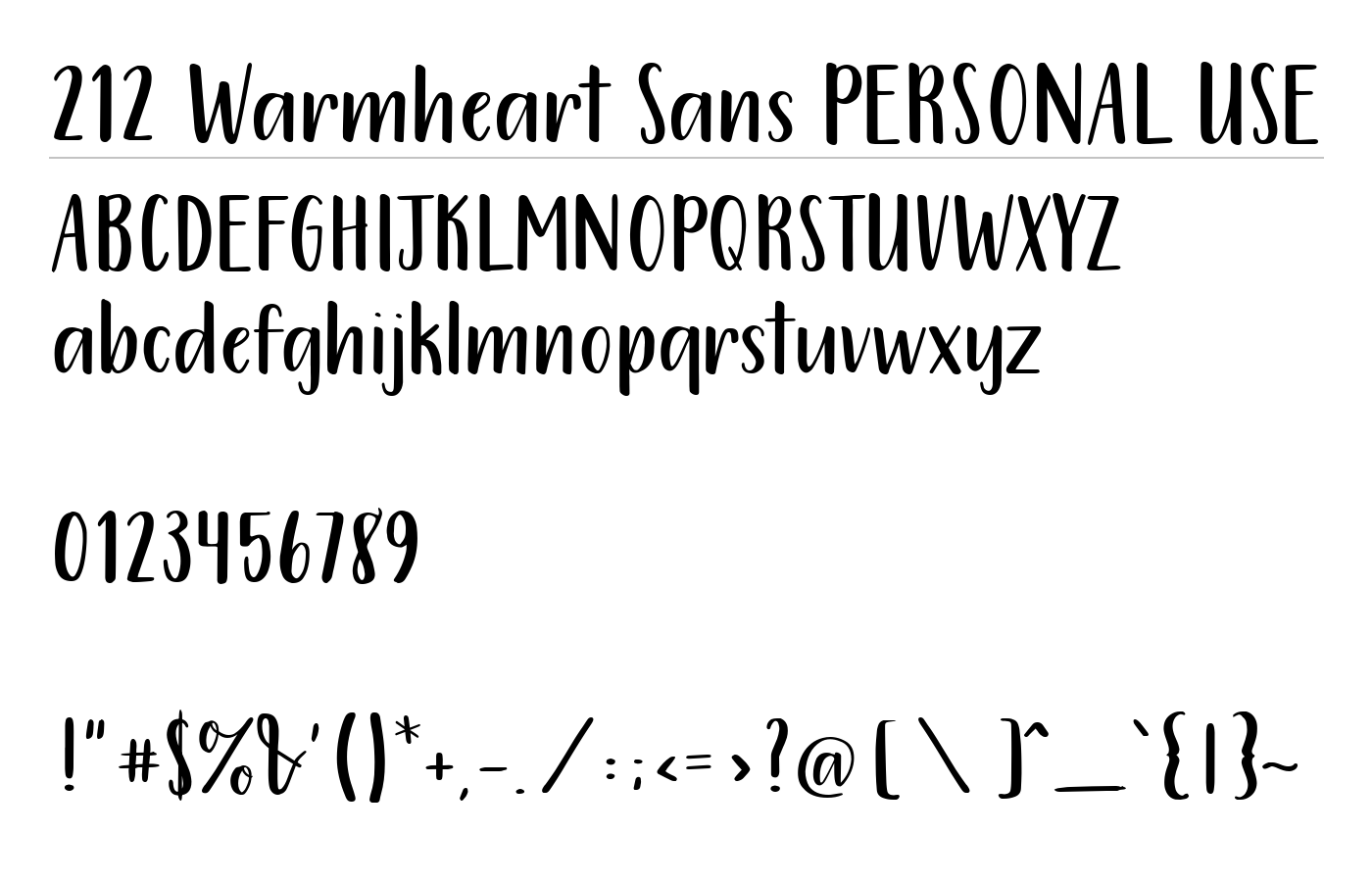
212 Warmheart Sans is a casual, hand-drawn sans serif font with a tall, narrow structure and playful, slightly uneven letterforms that give it a warm and friendly feel. Its light weight and clean design make it ideal for creative projects, informal branding, and invitations where a personal, approachable tone is desired. This font works well for headlines, greeting cards, and web content that benefits from a charming, human touch.
212 Warmheart Sans PERSONAL USE Font